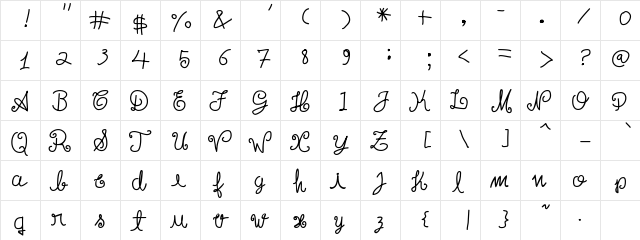
Escrita Toska Propria Med Italic Font Preview
Escrita Toska Propria Med Italic
Escrita Toska Propria Med Italic Font Details
Design Context for Escrita Toska Propria Med Typeface
Escrita Toska Propria Med is a composed and adaptable typeface that performs quietly and consistently across a wide range of design contexts. Its italic angle brings a sense of urgency and motion to the letterforms.
Pro Tip: Try Escrita Toska Propria Med for annotation and caption copy alongside an upright companion — the contrast in angle creates a dynamic but ordered typographic system.